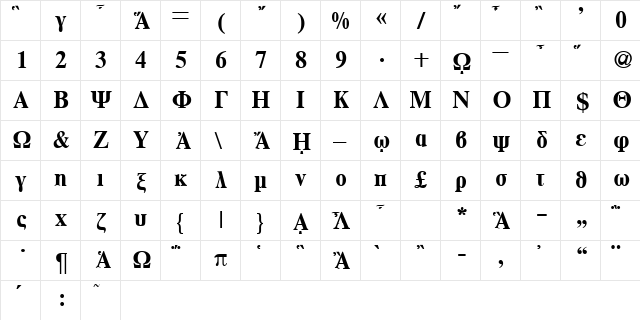
RomanGreek Bold
Design Context for RomanGreek Typeface
RomanGreek takes a measured approach to typography — its balanced proportions and neutral character make it a reliable workhorse for both digital and print work. The heavy weight commands attention and anchors typographic hierarchies.